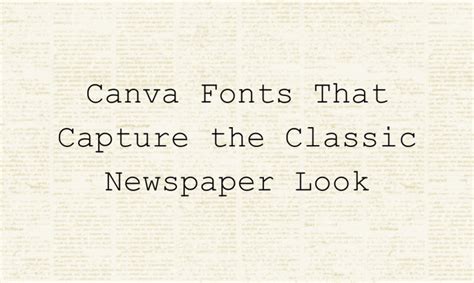
Newspaper Fonts: A Guide To Classic Typography
Newspaper Fonts: A Guide to Classic Typography
Hey everyone! Today, we’re diving deep into the fascinating world of newspaper text fonts . You know, those classic fonts that make you feel like you’re holding a piece of history in your hands? They’ve got a certain charm, a gravitas that modern fonts sometimes struggle to replicate. We’ll explore what makes these fonts so special, their history, and how you can use them to add that vintage, authentic feel to your own projects. So grab your coffee, settle in, and let’s get our typography game on!
The Allure of the Old School Newspaper Font
So, what exactly is it about newspaper text fonts that captivates us? It’s more than just aesthetics, guys. These fonts often come with a rich history, evolving alongside the printing press and the way we consume news. Think about it – for decades, these were the fonts that informed the masses. They needed to be readable, reproducible on a large scale, and convey a sense of urgency and importance. This led to the development of specific characteristics that we now recognize as classic newspaper typography. They are often serif fonts , meaning they have those little decorative strokes at the ends of letters. This serif style, particularly in older forms like Garamond or Times New Roman (which has roots in newspaper typesetting), helps guide the eye across long blocks of text, making them incredibly legible even in smaller sizes. The condensed nature of many newspaper fonts is another key feature. Space was, and still is, a precious commodity in print media. Designers needed to fit as much information as possible onto a page without sacrificing readability. This resulted in fonts that are taller and narrower than their standard counterparts, allowing for more characters per line. The overall impression is one of efficiency, reliability, and a certain journalistic authority. They aren’t flashy or overly decorative; they are functional, robust, and timeless. When you see a headline in a bold, condensed serif font, or body text set in a clear, slightly old-fashioned typeface, it instantly signals ‘news,’ ‘information,’ and ‘credibility.’ It’s a visual language that we’ve been conditioned to understand and trust over generations. The tactile feel of a newspaper, combined with its typography, creates a powerful sensory experience that digital media often can’t fully replicate. This enduring appeal is why designers and content creators are constantly looking back to these classic newspaper fonts for inspiration and application.
A Brief History of Newspaper Typography
Let’s take a little trip down memory lane, shall we? The history of newspaper text fonts is intrinsically linked to the evolution of printing technology. Before the printing press, text was painstakingly copied by hand, making widespread dissemination of information difficult. When Gutenberg introduced movable type in the 15th century, it revolutionized everything. Early printers, like Aldus Manutius in Venice, developed italic typefaces inspired by handwritten scripts, but for broader circulation and more formal texts, sturdy, readable roman typefaces became the norm. As newspapers emerged in the 17th century, the focus was on getting information out quickly and affordably. This meant using typefaces that were economical with space and easy to print with. The Industrial Revolution brought about faster printing presses and a demand for more content, pushing font designers to create even more condensed and legible options. Think of fonts like Ionic , Excelsior , and News Gothic . These were specifically designed for the demanding environment of newspaper printing. They often featured strong, thick strokes and clear serifs to ensure legibility even when printed on cheaper paper with less sophisticated presses. The late 19th and early 20th centuries saw further refinements. The Times of London commissioned the creation of Times New Roman in 1932, designed by Stanley Morison. It was a response to the need for a more economical and legible typeface for their publication, and it quickly became a global standard, influencing countless other newspaper fonts. Even with the advent of digital typesetting and the internet, the principles established by these early newspaper fonts remain relevant. Many modern sans-serif and serif fonts used in digital news outlets still draw inspiration from the clarity, readability, and condensed nature of their print predecessors. The goal was always to maximize information density while maintaining reader engagement, a challenge that continues to this day in both print and digital formats. It’s a testament to the enduring power of good design that these historical typographic solutions still resonate so strongly.
Key Characteristics of Newspaper Fonts
Alright, let’s break down what actually makes a font scream ‘newspaper,’ shall we? Understanding these key characteristics of newspaper fonts will help you pick the right one for your needs. First up, readability is king . Newspaper fonts are designed to be read for extended periods, often in less-than-ideal lighting conditions. This means they need to be clear and easy on the eyes. Many classic newspaper fonts are serif fonts . The serifs – those little feet and caps on the letters – help create a visual flow, guiding your eye from one word to the next, especially in long paragraphs. Think of fonts like Times New Roman , Georgia , or older styles like Caslon . They provide a certain warmth and tradition. However, you’ll also find plenty of sans-serif fonts used in newspapers, especially for headlines or more modern publications. These fonts, like Helvetica or Arial (though technically not designed for newspapers, they’ve been adopted), offer a clean, direct feel. Another crucial characteristic is condensed or narrow letterforms . Newspapers have limited space to pack in a ton of information. To maximize this, many newspaper fonts are designed to be narrower than standard fonts. This allows more characters to fit on a line, making the text appear denser and more information-rich. You’ll often see terms like ‘condensed,’ ‘compressed,’ or ‘narrow’ associated with these types. Strong contrast between thick and thin strokes can also be a feature, adding visual interest and aiding legibility, though this varies depending on the specific font and its era. Some fonts might have a more uniform stroke weight for maximum clarity, while others might have more pronounced variations for a classic, almost calligraphic feel. Finally, consider the x-height . This is the height of lowercase letters like ‘x’, ‘a’, and ‘n’. Newspaper fonts often have a relatively large x-height compared to their overall font size. This makes the body text appear larger and easier to read, even at smaller point sizes. It’s all about balancing aesthetics with pure functionality, ensuring that the message gets across clearly and efficiently. These elements combine to create a typography that is both functional and possesses a distinct, often nostalgic, character.
Now for the fun part – let’s look at some actual popular newspaper font examples and where you might have seen them, or where you can use them!
Times New Roman
Ah, Times New Roman . This is probably the OG of newspaper fonts for many people. Developed for The Times of London, it’s a robust serif font that strikes a perfect balance between traditional elegance and modern legibility. Its slightly condensed nature means it’s efficient with space, making it ideal for lengthy articles. Use cases: Perfect for body text in articles, books, reports, and academic papers where you need a classic, authoritative, and highly readable font. It’s the workhorse of the print world for a reason!
Georgia
Georgia is a serif font designed specifically for screen readability, but it has a warm, slightly old-fashioned feel that evokes newspaper print. It’s a bit more robust and rounded than Times New Roman , making it very comfortable to read for long stretches. Use cases: Excellent for online articles, blogs, and even print materials where you want a friendly yet classic feel. It’s great for body copy.
Garamond
Garamond is an old-style serif font with a beautiful, classic aesthetic. While perhaps not strictly a ‘newspaper’ font in the modern sense, its historical roots and elegant readability have made it a staple in publishing for centuries, including early newspapers. It has a lighter feel than Times New Roman . Use cases: Ideal for more literary or historical pieces, books, and publications aiming for a sophisticated, timeless look. Think of it for feature articles or opinion pieces that require a touch of class.
News Gothic
Now we’re moving into sans-serif territory with News Gothic . This is a classic American gothic (sans-serif) typeface, designed with newspaper work in mind. It’s condensed, highly legible, and has a no-nonsense feel. Use cases: Fantastic for headlines, subheadings, captions, and short blocks of text where clarity and impact are key. It’s also great for modern designs that want that vintage newspaper vibe without being overly traditional.
Helvetica
While Helvetica wasn’t originally designed for newspapers, it’s become ubiquitous in modern media, including news publications. Its clean, neutral, and highly legible sans-serif design makes it incredibly versatile. Many newspapers use condensed versions of Helvetica for headlines and bylines. Use cases: Headlines, subheadings, captions, and even body text in contemporary publications. It offers a clean, objective, and modern feel, often used to contrast with more traditional serif fonts.
Franklin Gothic
Another strong contender in the American gothic family, Franklin Gothic is a bold and versatile sans-serif font. Like News Gothic , it was designed for impact and clarity, making it a popular choice for headlines and display text in newspapers. Use cases: Powerful headlines, subheadings, and any text that needs to grab attention. It has a strong, confident presence.
These are just a few examples, but they represent the range of styles you’ll find associated with newspaper typography – from the stately serifs of traditional broadsheets to the clean efficiency of sans-serifs used for headlines. Choosing the right one depends on the specific mood and purpose of your design!
How to Use Newspaper Fonts in Your Designs
So, you’ve learned about the history and characteristics, seen some examples – now how do you actually use these newspaper text fonts effectively in your own creative projects? It’s all about capturing that authentic vibe without making your design look dated or unreadable. Here are some tips, guys!
First off, think about hierarchy . Newspapers use different fonts and weights for headlines, subheadings, bylines, and body text. Mimic this! A bold, condensed sans-serif for a headline paired with a readable serif for the body text creates that classic newspaper feel. Don’t be afraid to mix and match, but keep it intentional. For example, use a strong font like Franklin Gothic or News Gothic for your main title, and then switch to a more classic serif like Georgia or Times New Roman for the article content. This contrast guides the reader’s eye and establishes a clear structure, just like in a real newspaper.
Embrace the condensed look . If you’re going for that classic, information-packed feel, consider using condensed or narrow versions of fonts. They are perfect for fitting a lot of text into a small space, whether it’s a long article or a list of details. Just be mindful of readability; extremely condensed fonts can become hard to read in large blocks. Use them strategically for impact, perhaps for pull quotes or short, punchy paragraphs.
Consider the texture and color . Newspapers often have a slightly rough, textured look due to the paper and printing process. You can replicate this digitally by adding subtle texture overlays to your background or text. Also, think about color. While black text on a white background is standard, newspapers sometimes use a dark grey or even a muted color palette. Consider using a slightly off-white background or a dark grey instead of pure black for your text to give it a more vintage, less digital feel. This subtle shift can make a big difference.
Don’t overdo it . While it’s tempting to go all-in with the newspaper aesthetic, restraint is key. You don’t want your design to look like a cheap imitation. Sometimes, just one or two well-chosen newspaper-style fonts are enough to convey the desired mood. Perhaps use a headline font that evokes a classic newspaper, but keep the rest of the design relatively clean and modern. This creates an interesting juxtaposition and feels more sophisticated.
Experiment with layout . Newspapers have distinct layouts – columns, grids, ample white space (or sometimes, very little!). Play with column structures in your design. Use justified text for body copy to create those clean, block-like paragraphs. Consider adding elements like pull quotes, datelines, and bylines to enhance the journalistic feel. A strong grid system will help organize your content and give it that structured, professional look that newspapers are known for.
Finally, understand your audience and purpose . Are you trying to evoke a specific historical period? Are you aiming for a vintage feel for a modern product? Are you creating a serious news-like presentation? Tailor your font choices and design elements to match your goals. The right newspaper font, used thoughtfully, can add immense character, credibility, and a touch of timeless style to your work. So go ahead, experiment, and have fun with it!
The Future of Newspaper Typography
Even as the media landscape shifts, the legacy of newspaper text fonts isn’t fading away; it’s evolving. While fewer people might be holding a physical broadsheet, the principles of clear, efficient, and engaging typography pioneered by the newspaper industry continue to influence design across all platforms. Digital news outlets, for instance, still grapple with the same fundamental challenges: how to present a large volume of information clearly, how to capture attention with headlines, and how to keep readers engaged through long articles. This is why we see many online publications adopting fonts that echo the characteristics of traditional newspaper fonts – readability, condensed forms for space efficiency, and clear hierarchy. Think about the rise of responsive design; fonts need to adapt seamlessly across various screen sizes, from desktops to smartphones. This necessity for versatility has led to the creation of modern font families that offer a wide range of weights and widths, allowing designers to achieve both impact and legibility, much like the classic newspaper font families did in their day. Furthermore, the aesthetic appeal of vintage newspaper design hasn’t diminished. Many designers intentionally incorporate these fonts and layouts into branding, editorial design, and even web design to evoke a sense of nostalgia, authenticity, and journalistic integrity. It’s a way to connect with a sense of history and tradition in an increasingly digital and fast-paced world. We’re seeing a blend – classic serif fonts used for digital body text to maintain that trusted, readable feel, combined with bold, condensed sans-serifs for digital headlines to ensure they stand out. The tools have changed, from hot metal typesetting to advanced digital software, but the core goal remains the same: effective communication. The enduring principles embedded in classic newspaper fonts – clarity, density, and strong visual hierarchy – are timeless. They serve as a foundational language of information design, and their influence will undoubtedly continue to shape how we read and interact with text for years to come, proving that good design truly transcends time and technology.
So there you have it, folks! We’ve journeyed through the world of newspaper text fonts , uncovering their historical significance, distinctive characteristics, and practical applications. From the robust serifs that anchor lengthy articles to the punchy sans-serifs that command attention in headlines, these fonts have played a crucial role in shaping how we consume information for centuries. They represent a unique blend of functionality and timeless style, designed for maximum readability and impact within the constraints of print. Whether you’re a seasoned designer or just starting out, understanding these classic typefaces can offer valuable insights and provide a powerful toolkit for adding authenticity, credibility, and a touch of vintage charm to your projects. So next time you pick up a newspaper or browse an online news site, take a moment to appreciate the typography – it’s a silent storyteller, carrying the weight of history and the clarity of information. Keep experimenting, keep creating, and keep those stories readable!